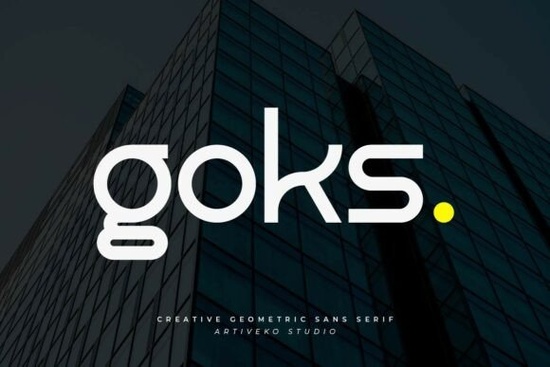
If you're looking for a sans serif font that brings both strength and character to your brand identity, Goks Font is worth considering. It’s designed with clean lines and thoughtful details, making it ideal for logos, packaging, and any project where you want to stand out without overcomplicating things.
What makes Goks Font different from other sans serif fonts?
Goks stands out because it balances boldness with clarity. Unlike many fonts that lean too hard into either minimalism or flair, Goks finds a sweet spot professional enough for business use, creative enough to spark interest. The letterforms are well-proportioned, with subtle quirks in the strokes that give each character personality without distracting from readability.
You’ll notice how the uppercase letters have a confident presence, while lowercase forms maintain warmth and approachability. This mix helps brands feel both reliable and original perfect for small businesses, crafters, or anyone building a personal brand.
Where can you use Goks Font effectively?
- Logo design: Whether for a startup, boutique, or handmade product line, Goks adds instant visual impact.
- Print-on-demand items: Use it on T-shirts, mugs, or tote bags to create memorable designs.
- Branding materials: From business cards to social media banners, it keeps your look consistent and modern.
- Creative projects: Ideal for digital art, posters, or even wedding invitations if you’re going for a sleek yet expressive style.
The font works well across both digital and print formats, so you don’t need to worry about quality loss when scaling up or down. It also supports multiple languages, which is helpful if you're designing for international audiences.
How does Goks fit into a broader collection of fonts?
If you already use other Creative Fabrica fonts like Hightone Family, Ottero, or Affigue, Goks complements them nicely. While each has its own tone Hightone leans more technical, Ottero feels playful, and Affigue offers a soft elegance Goks brings a grounded energy that holds its own in mixed sets.
For example, pairing Goks with a softer script or decorative typeface creates contrast that draws attention without chaos. Or use it alongside Pencil Beautiful for a handcrafted vibe perfect for artisanal brands or journaling projects.
When choosing a font, think about how it will be used not just how it looks, but how it feels. Does it match the mood of your brand? Can it scale well? Is it easy to read at small sizes? Goks answers all these questions with consistency and care.
Final thoughts: Is Goks Font right for your next project?
If you want a font that doesn’t fade into the background but still feels trustworthy, Goks is a solid choice. It’s not flashy, but it’s far from ordinary. Its clean structure and distinctive touch make it suitable for serious branding work as well as fun creative experiments.
Whether you're launching a new business, selling handmade goods, or just trying something fresh for your portfolio, adding Goks to your toolkit gives you one more way to express your vision clearly and confidently.
- Test Goks at different sizes before finalizing your layout.
- Pair it with a complementary font to enhance visual hierarchy.
- Use it consistently across all brand touchpoints for stronger recognition.
Start with a single logo or mockup. See how Goks fits your idea. Then expand from there. It’s a font that grows with your creativity.